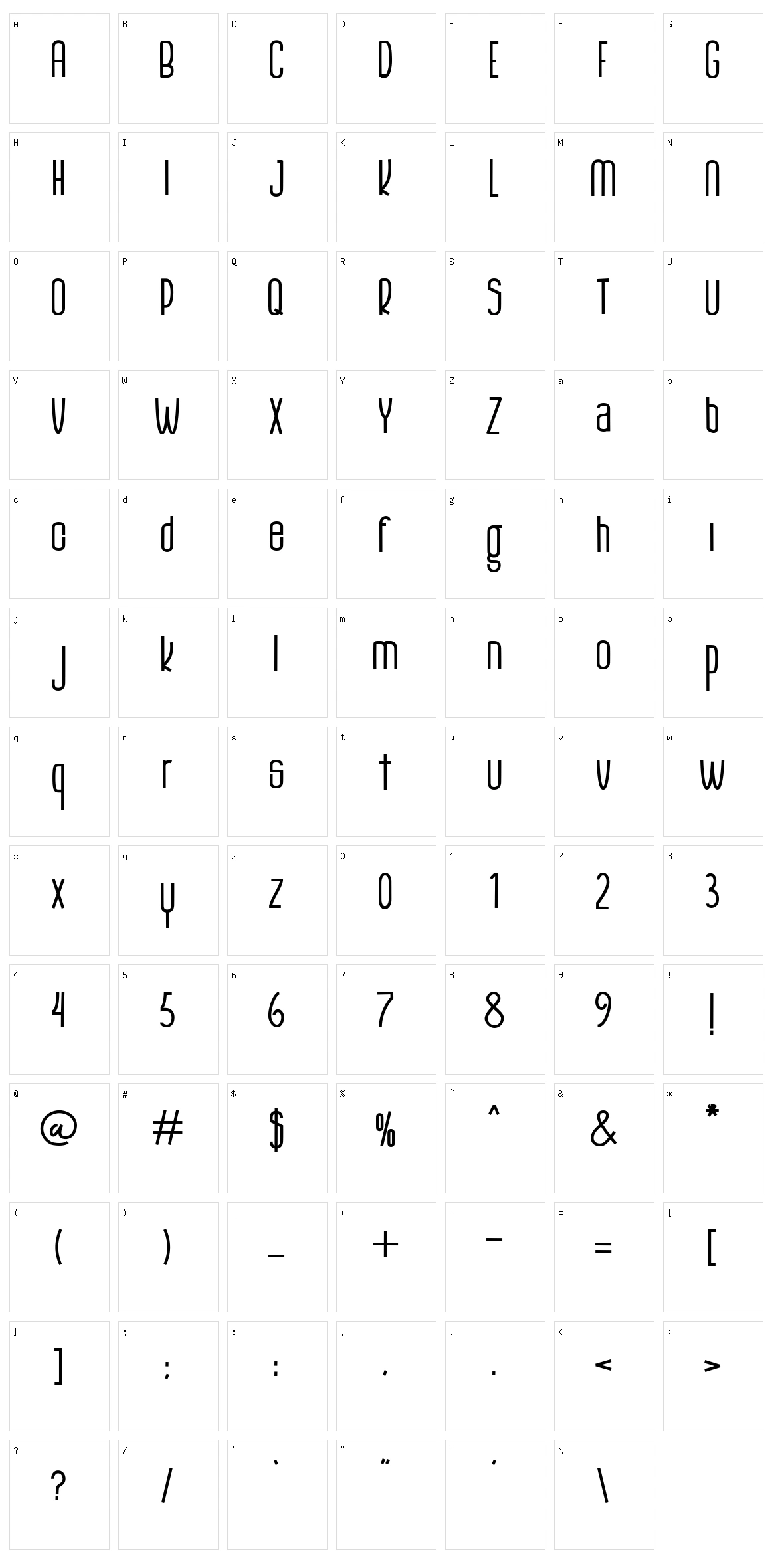
The free font The Monthego is carefully designed by Jujun Gag, showcasing a thoughtful balance of creativity and usability and falls under the Sans serif font style. When you download the ZIP file, it contains only 61.84 KB of font files, making it lightweight and quick to download. Please review the license details below to understand permitted usage and distribution rights. If license information is not available, we recommend using this font for personal projects only or contacting the author directly for commercial usage permissions.